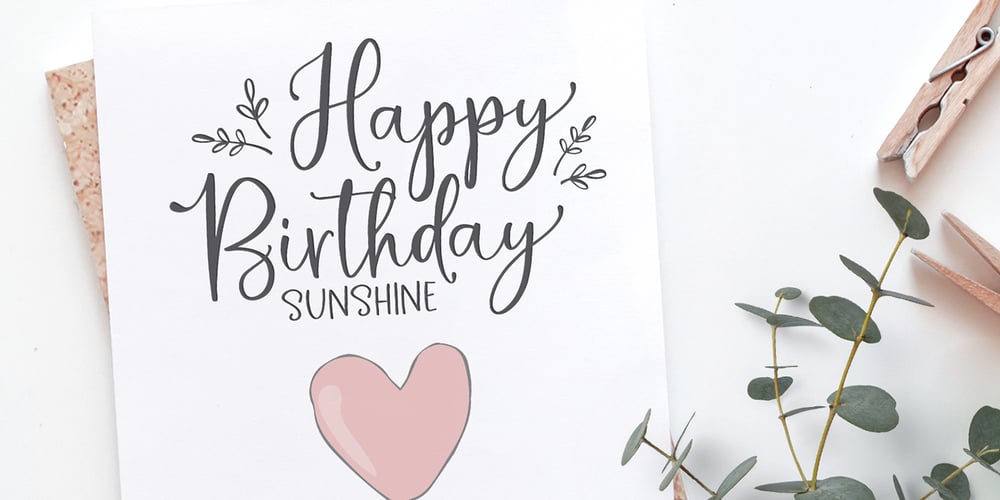
Hey Bombshell Font Family was designed by Callie Hegstrom and published by Make Media Co. Hey Bombshell contains 3 styles and family package options. Are you looking for a fun, bouncy lettering set for envelopes, logos, typography, branding and greeting cards?! Well look no further! Created with stationary in mind, Hey Bombshell is sweet, sassy and LOADED with extras to make your work stand out!